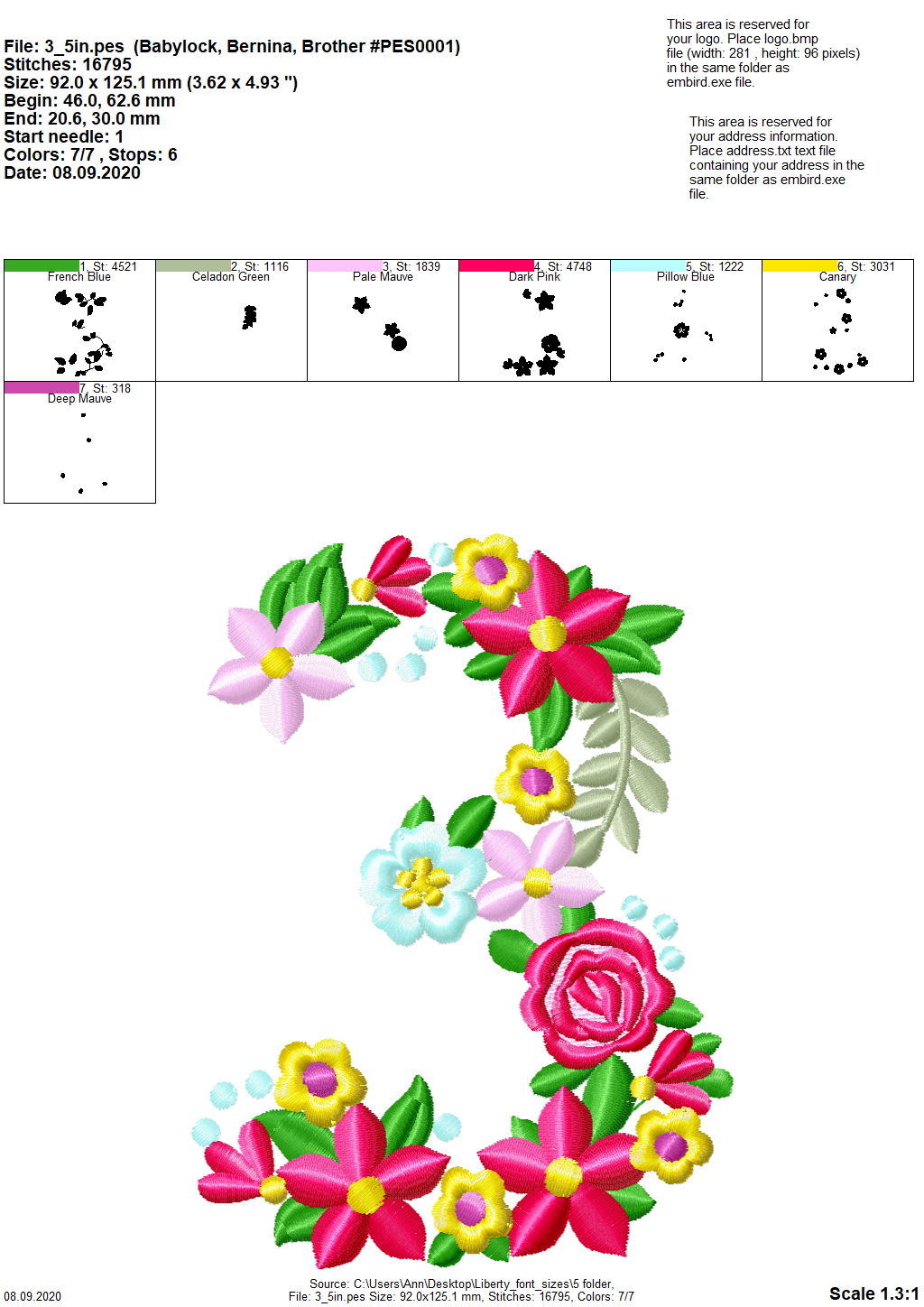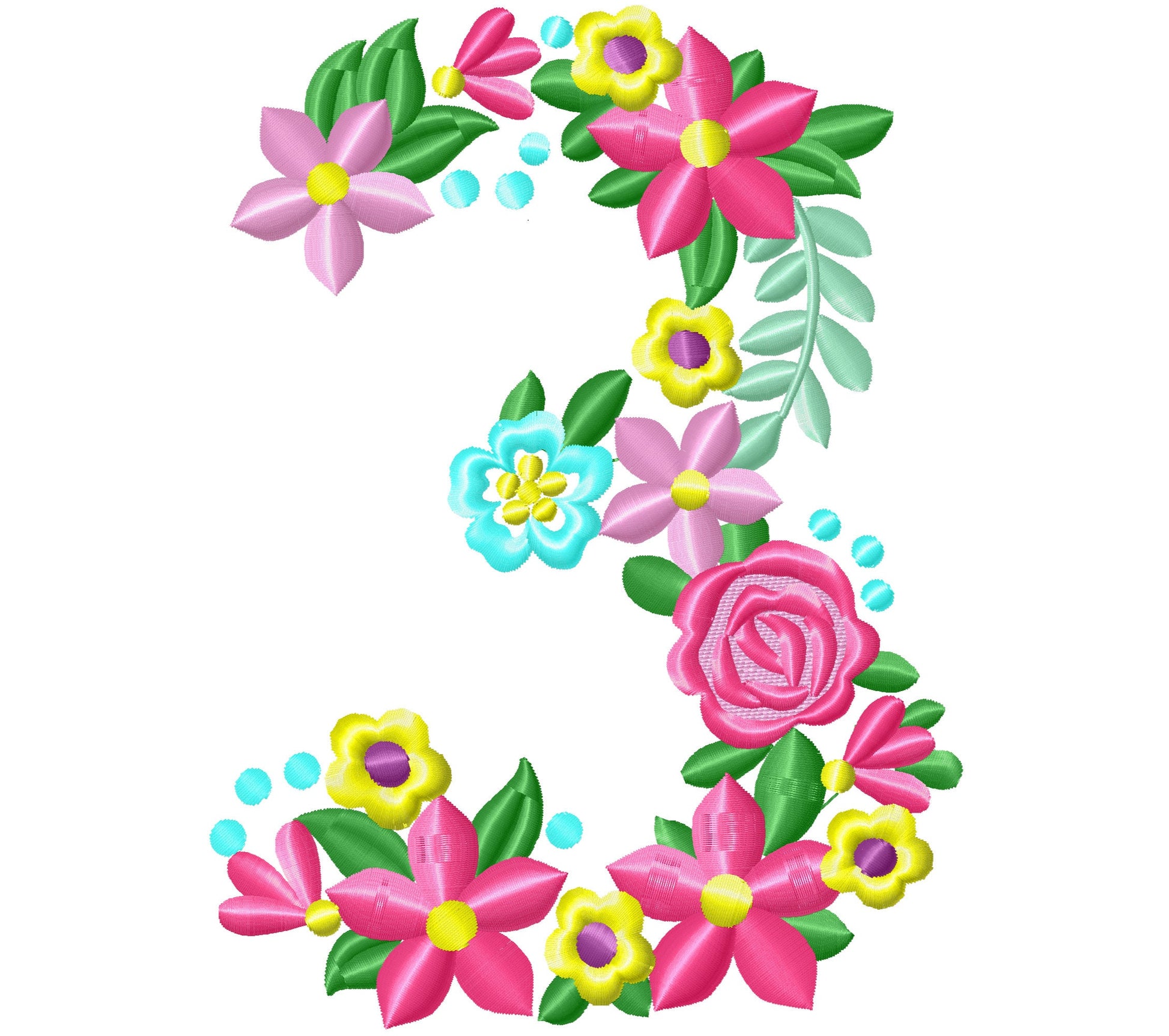
Floral Birthday Number Three
The number 3 comes in six sizes: 3.5, 4, 5, 6, 7 and 8 inches. This is the number 3 only, from a floral alphabet and numbers set.
- Floral number 3